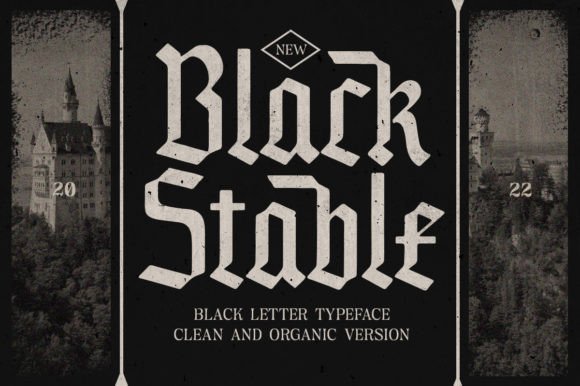
Step into the world of Black Stable, a modern blackletter font that exudes timeless elegance and captivating charm. This extraordinary font, crafted by the skilled hands of letterhend, is an absolute delight for designers and creative visionaries.
Black Stable's strong and striking strokes evoke a sense of nostalgia, transporting you back to the days of chivalry and romance. Its bold presence commands attention, making it the perfect choice for creating logos, headlines, and brand identities that leave a lasting impression.
Imagine your designs adorned with the exquisite curves and intricate details of Black Stable. Its carefully crafted characters convey a sense of sophistication and luxury, adding a touch of mystique to your creative endeavors. From vintage-inspired designs to modern, edgy projects, Black Stable effortlessly adapts to any style, elevating your work to new heights.
Unlock the full potential of your creativity with Black Stable. Its PUA encoding ensures effortless access to a vast array of glyphs and swashes, providing endless possibilities for customization and personalization. Experiment with different combinations, explore unique letterforms, and unleash your imagination to create designs that captivate and inspire.